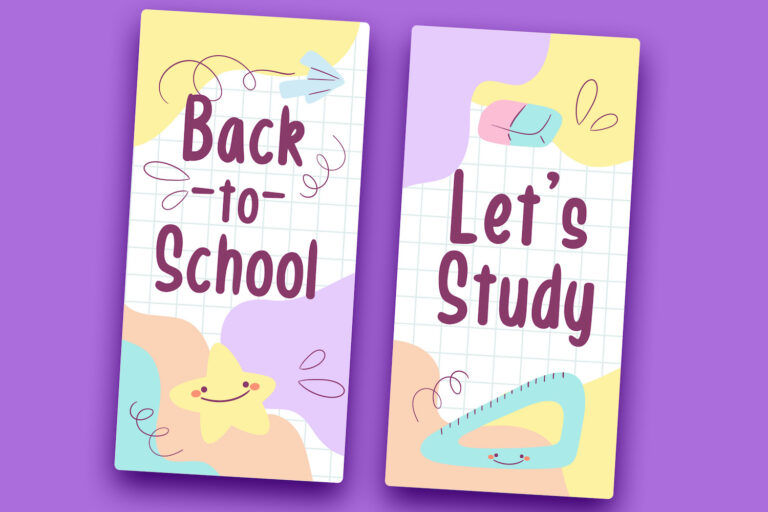
Hiroshima
Hiroshima is a bold, pop-spirited display typeface built to grab attention fast—rounded, bouncy, and instantly fun, with a comic-like presence that feels energetic even before you add any effects.
At first glance, it hits with a friendly “WOW” factor: chunky strokes, soft corners, and playful proportions that make every word feel loud, approachable, and upbeat—perfect for designs that need to feel lively rather than formal.
In headlines, Hiroshima delivers strong readability and a punchy silhouette, making short titles, hero text, and big signage look confident and cheerful. It’s a natural fit for promotions, kids-related content, packaging, posters, social media banners, and event graphics where you want the message to feel bright and welcoming. Its thick forms also love contrast and color—try vibrant fills, clean outlines, drop shadows, gradients, or halftone textures to amplify the pop-art vibe without losing the letter shape.
For best legibility, keep it at medium-to-large sizes, give it a little breathing room with comfortable spacing, and use high-contrast backgrounds. Pair it with a simple sans-serif for body text, and avoid stacking too many effects at once so the playful details stay clear. Designed by Stringlabs, licensed Free for Personal Use.